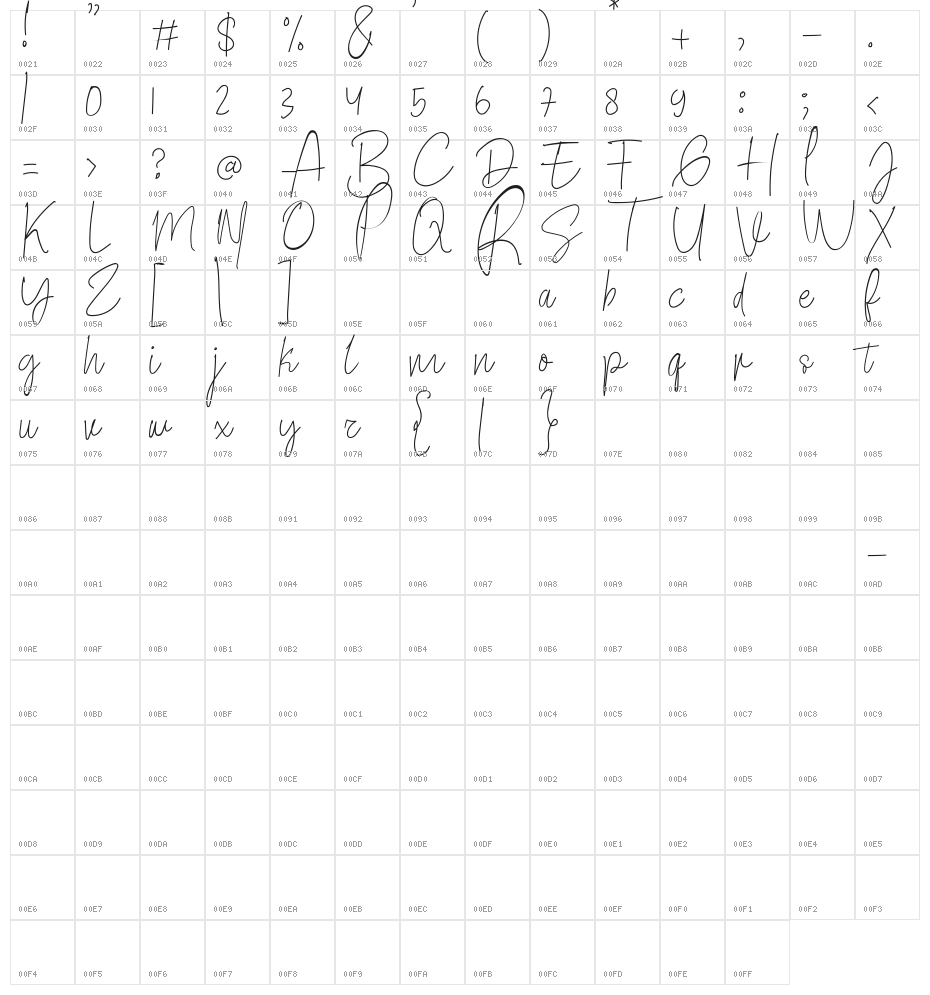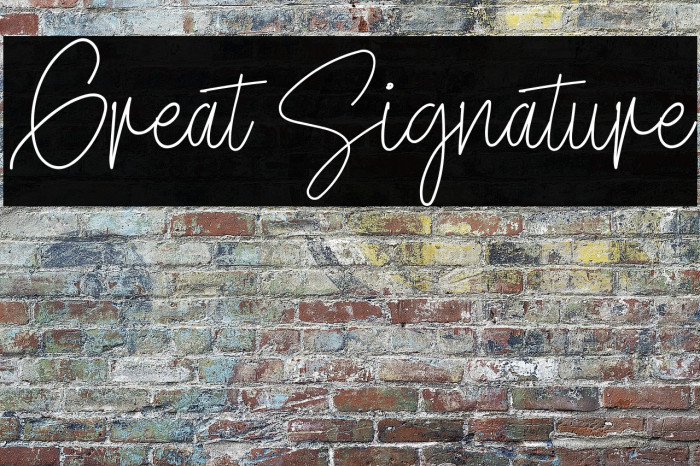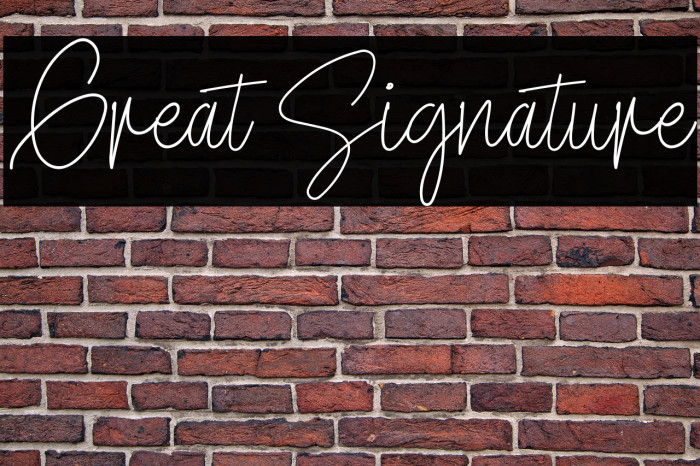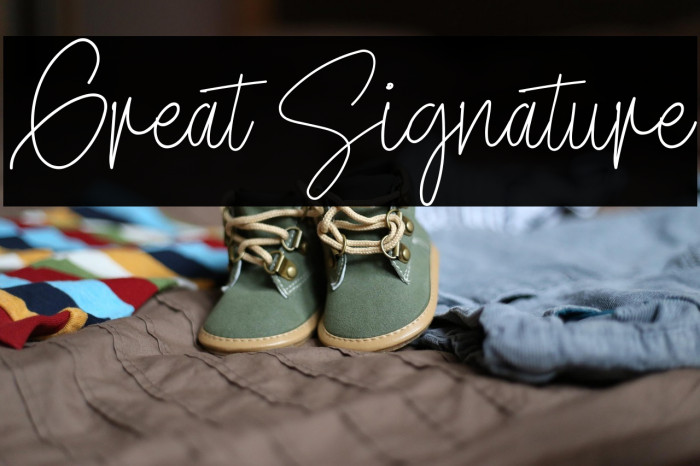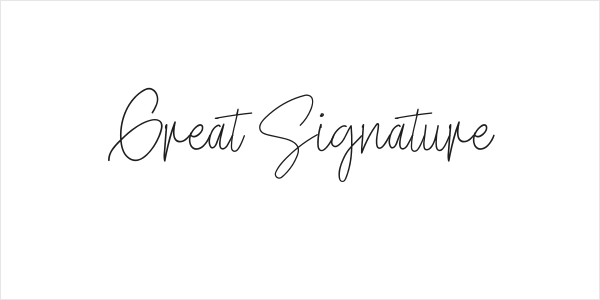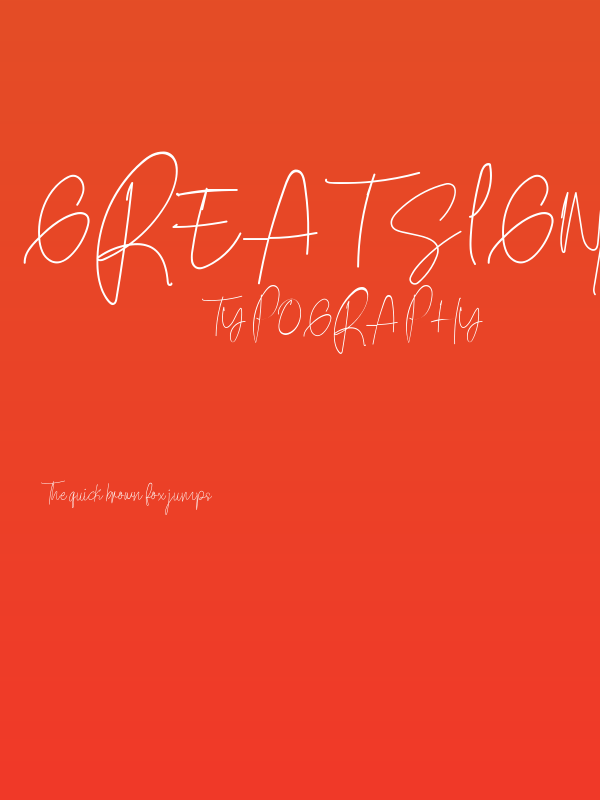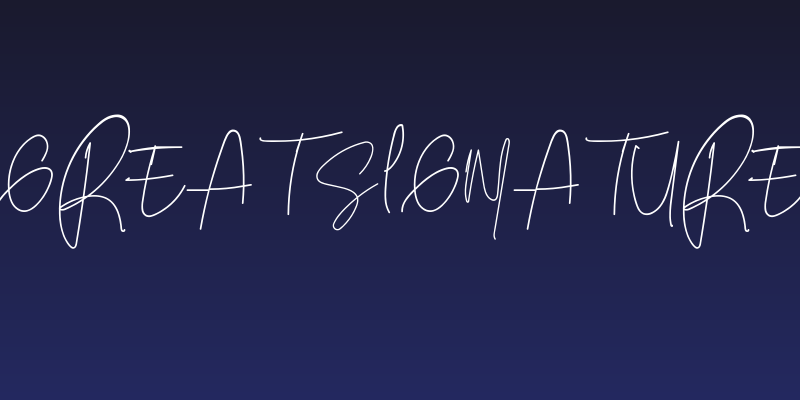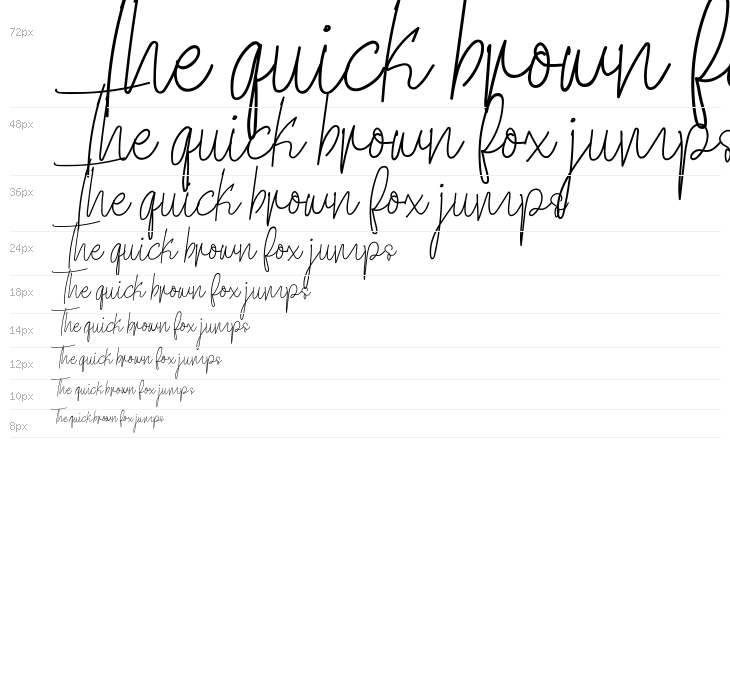
Great Signature Font
Great Signature Description
This font exudes a casual, handwritten style that mimics the fluidity and personal touch of a signature. The characters are elegantly elongated with a slight slant, giving them a dynamic and lively appearance. The uppercase letters maintain a consistent height, while the lowercase letters exhibit a playful variation in size and form. The numerals are clear and distinct, complementing the overall aesthetic. Special characters are seamlessly integrated, maintaining the font's cohesive look. The strokes are thin and delicate, adding to the font's sophisticated yet approachable feel.
| Use Case | Logos, Invitations, Personal branding |
| Proposed Projects | Ideal for personal branding, invitations, greeting cards, and any project requiring a personal touch. |